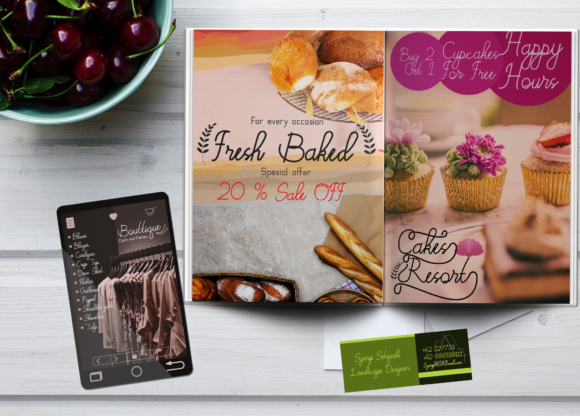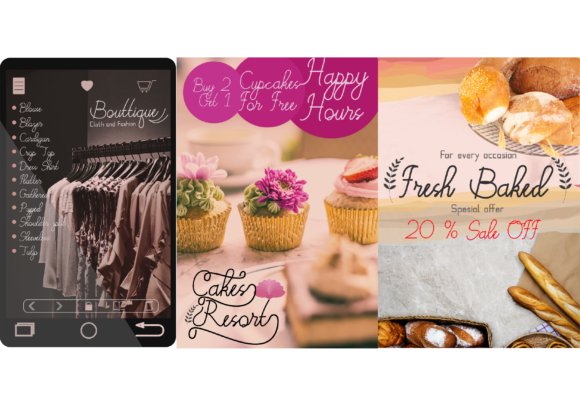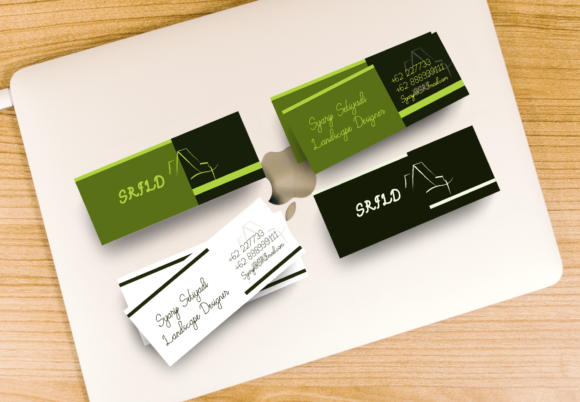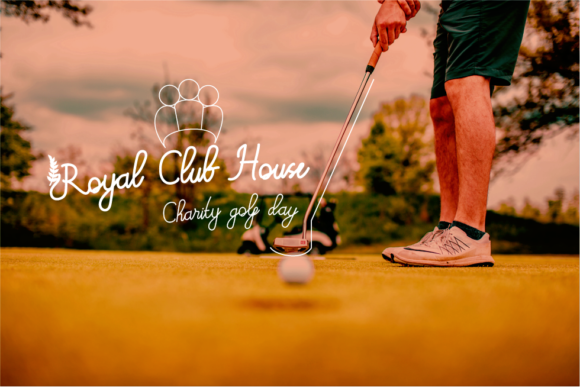
Budapest Font
About Budapest Font
Budapest is a beautiful handwritten monoline script. It’s suitable for magazines, displays, articles, and much more!